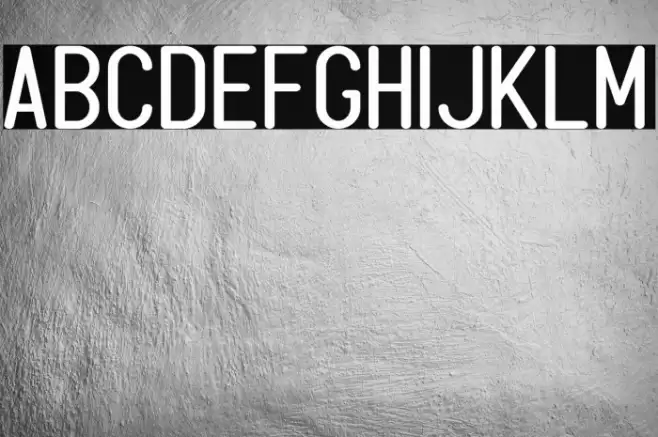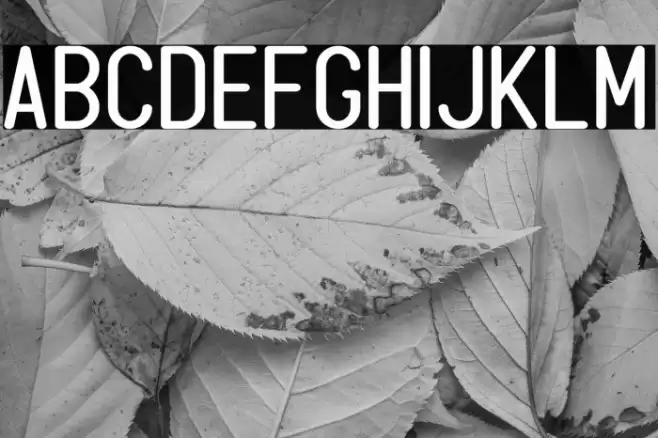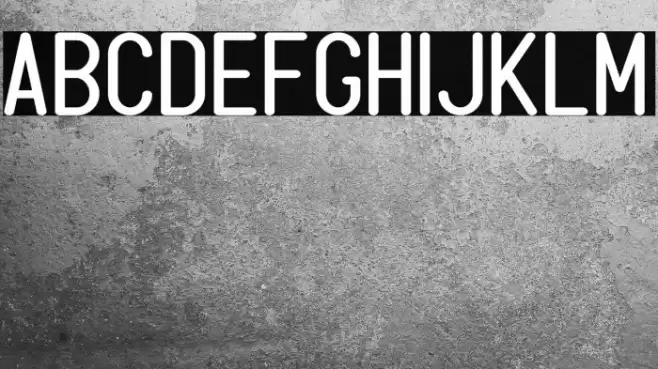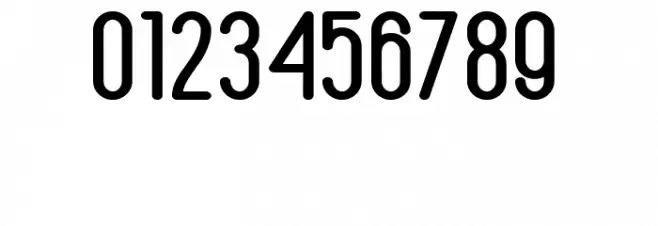
Milleniale Personal Use Only Font
Milleniale Personal Use Only Description
This font features a modern and clean design with rounded edges that give it a friendly and approachable appearance. The characters are evenly spaced, providing a balanced and harmonious look. The uppercase letters are bold and slightly condensed, while the lowercase letters maintain a consistent height, enhancing readability. The numerals are clear and distinct, matching the overall style of the alphabet. This font is versatile, suitable for various design projects that require a contemporary and inviting aesthetic.
A modern, rounded font with a clean and approachable design from Uncategorized fonts.
- Proposed Projects: Ideal for branding, advertising, packaging, and digital media projects that require a modern and friendly touch.
- Use Case: Headlines, Logos, Digital Media